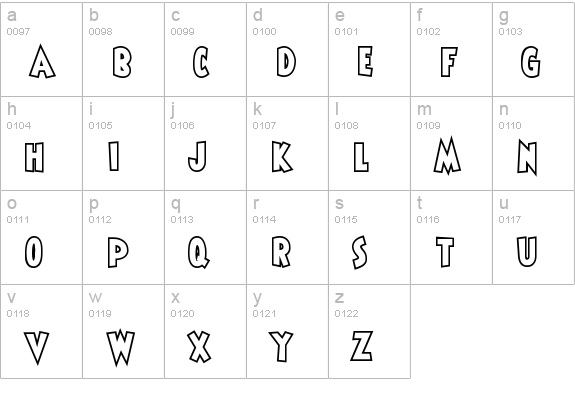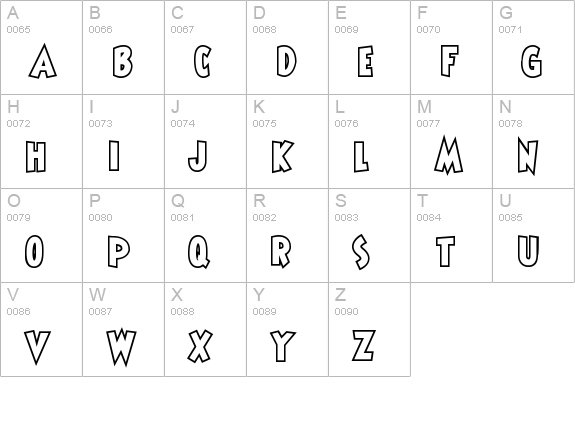
ShermlockOpen Font Details
ShermlockOpen is a visually striking and versatile font that captures the essence of elegance and modernity. With its clean lines and sharp edges, this font is sure to make a statement in any design project. Created with meticulous attention to detail, ShermlockOpen offers a perfect balance between sophistication and readability. This font is not only visually appealing but also incredibly practical. Its wide range of weights and styles allow for endless creative possibilities, making it ideal for both headlines and body text. Whether you're designing a logo, a website, or a promotional material, ShermlockOpen will bring your ideas to life with its bold and distinctive appearance. One of the best things about ShermlockOpen is that it is completely free. Yes, you heard it right! This incredible font can be freely downloaded from FontsMarket.com. This means that you can harness the power of ShermlockOpen in your projects without having to worry about breaking the bank. It's a fantastic opportunity to enhance your designs with a high-quality font that won't cost you a penny. So why wait? Go ahead and download ShermlockOpen from FontsMarket.com today and let your creativity soar to new heights. With its striking aesthetic and unbeatable price, this font is a must-have for any designer or creative professional. Don't miss out on the chance to elevate your designs and make a lasting impression with ShermlockOpen.